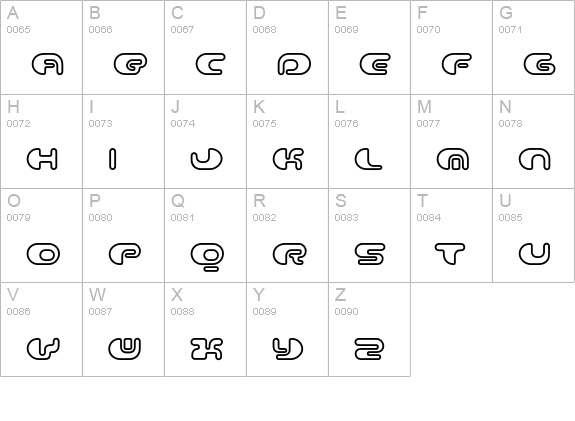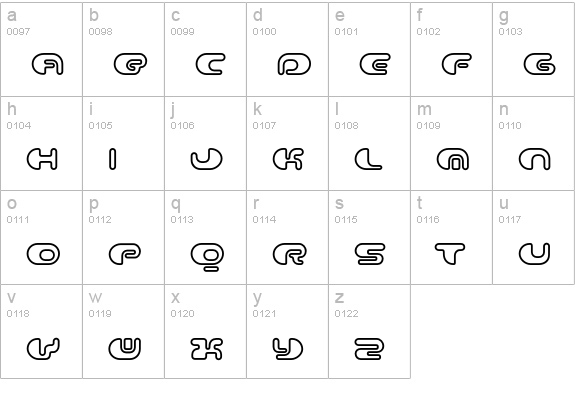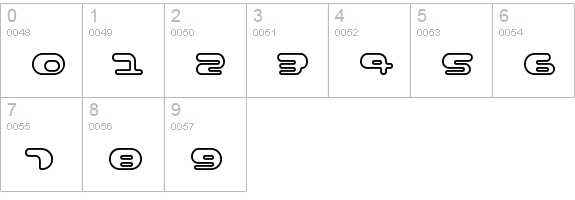
The Contour-Outline font is a stunning display typeface that exudes sophistication and modernity. Its unique design features crisp outlines and sleek contours, making it perfect for creating eye-catching headlines, logos, and other design projects. This versatile font is sure to make a statement and elevate any design to the next level. Best of all, the Contour-Outline font is completely free to download at FontsMarket.com. Whether you're a professional designer looking to add a stylish touch to your work or a hobbyist seeking a fresh font for personal projects, this font is a fantastic choice. Don't miss out on the opportunity to enhance your designs with this beautiful and elegant typeface, available for free download now!